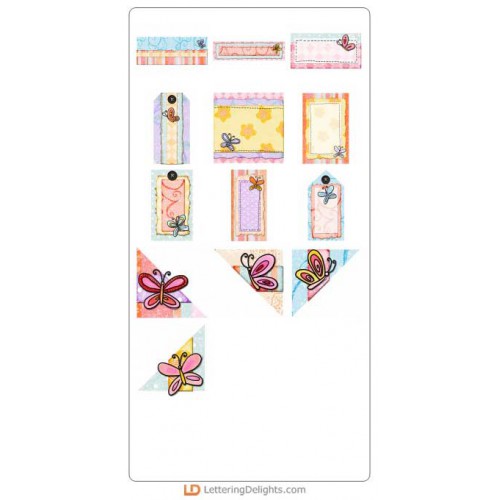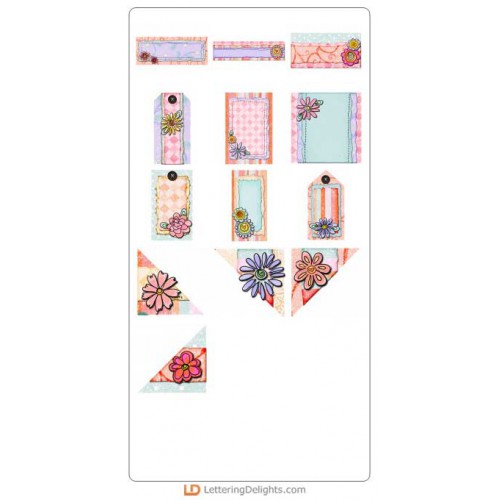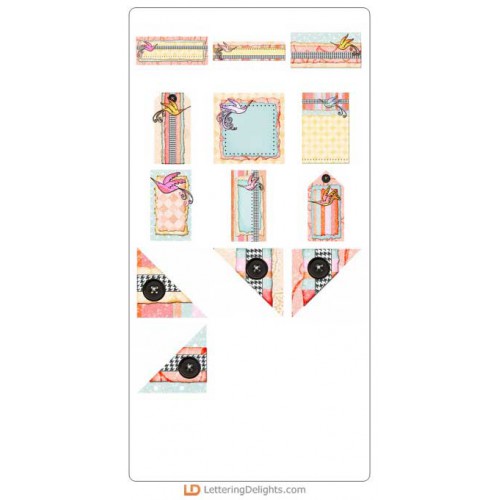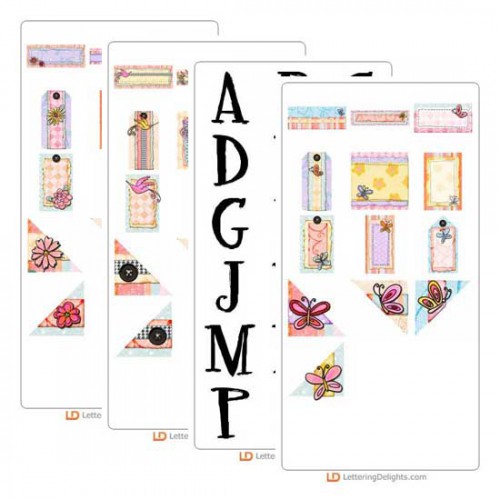
LDJ Scribble Bundle
This delightful bundle of alphabets, Journaling Delights, and a true type font feature fanciful artwork in watercolor style. Pastels add a feminine touch. You'll love these printable images for spring, summer, and wedding paper crafts.